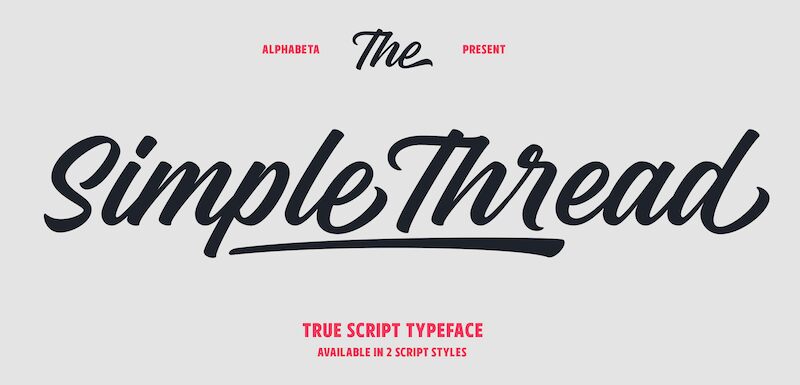
Simple Thread is a calligraphy font designed by Mans Greback. It is suitable for projects that require a refined, yet playful touch such as wedding invitations, greeting cards, logos and designs.
Use underscore _ anywhere in a word to make an underline.
Example: Love_letter
Use multiple underscores to make different swashes.
Example: Base_____ball
Use numbersign # after any letter to make a swash.
Example: Hello# Welcome#